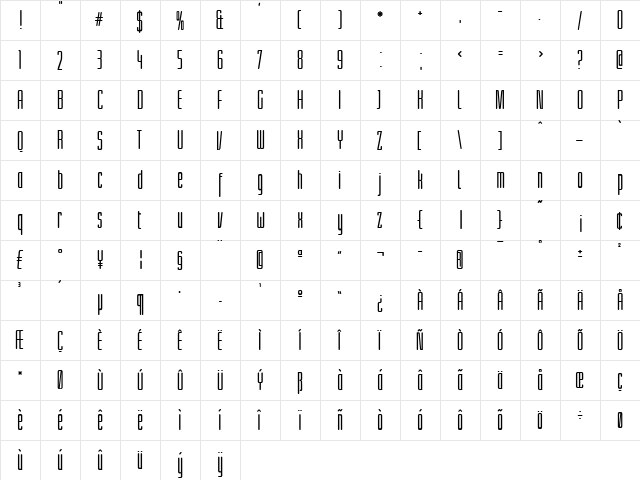
LinotypeLichtwerk Bold Font Preview
LinotypeLichtwerk Bold
LinotypeLichtwerk Bold Font Details
Design Context for LinotypeLichtwerk Typeface
LinotypeLichtwerk offers clean, dependable letterforms without strong stylistic allegiance, making it a practical choice for designers who need flexibility. The heavy weight commands attention and anchors typographic hierarchies.